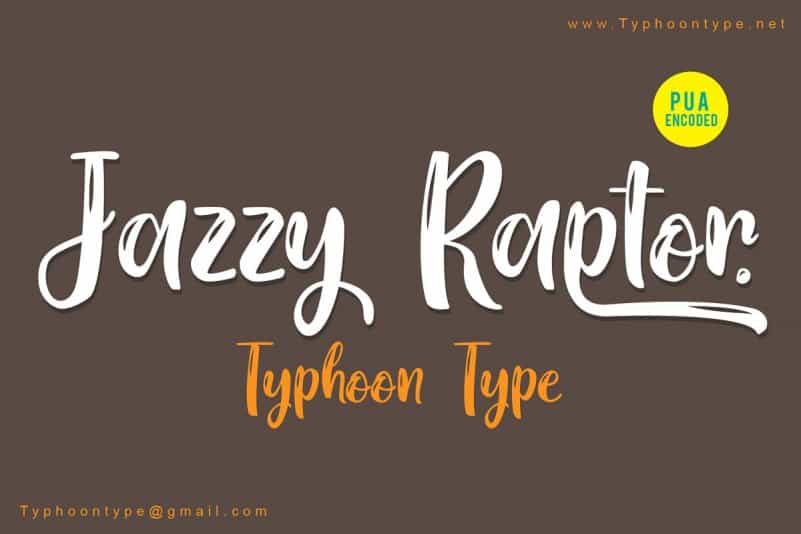
Jazzy Raptor Brush Handwritten font style, this font will perfect for many different project ex: text and logo designs, blog header, poster, banding, clothing and accessories, letter, invitation, greeting cards, etc.